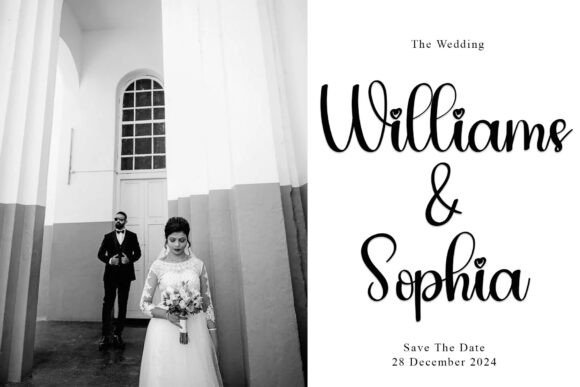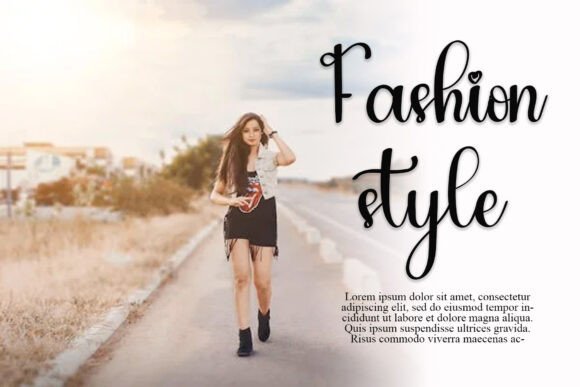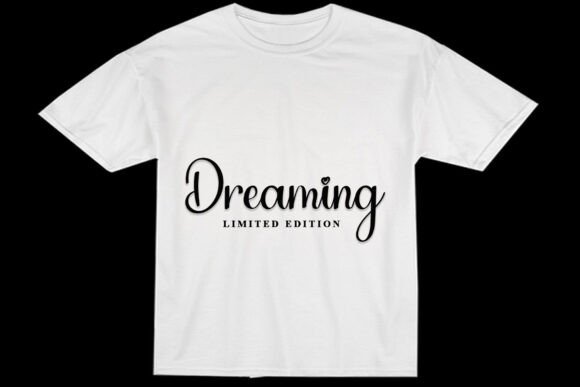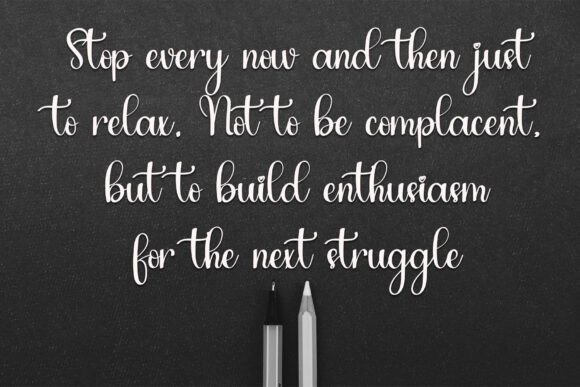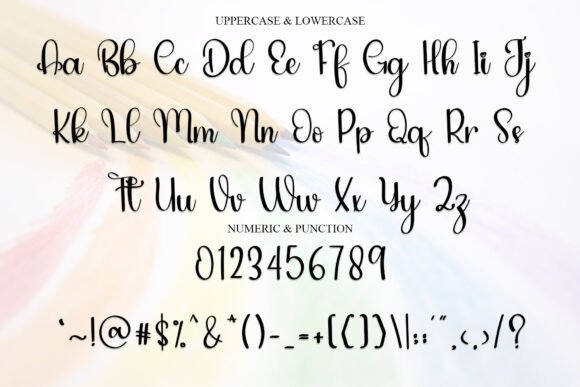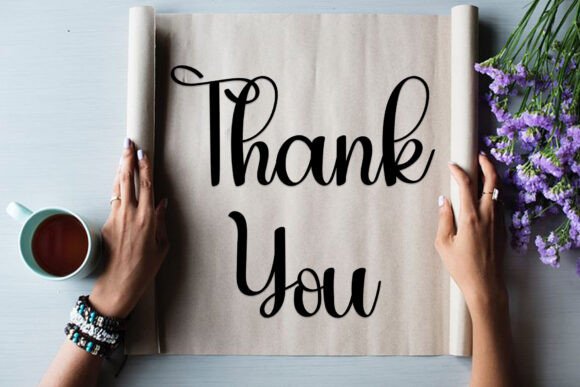
Unlock the Whimsy of Beautiful Darling Font
Do you remember the thrill of discovering a new font that perfectly captures the essence of your creative vision? For many designers, that ‘aha’ moment is what drives us to keep pushing the boundaries of our art. It’s the spark that ignites a new project, a fresh idea, or a bold statement. And that’s exactly what happened when I stumbled upon the Beautiful Darling Font.
This playful handwritten font is more than just a pretty face – it’s a versatile tool for designers looking to add a touch of warmth and personality to their work. With its relaxed and friendly style, Beautiful Darling Font is perfect for casual designs, school projects, or fun summer-themed ideas. Its PUA encoding also makes it easy to access all the amazing glyphs and ligatures, giving you endless creative possibilities.
Beautiful Darling Font Key Features
- Font Family: Beautiful Darling
- Unique Characteristics: Elegant script font with swashes and flourishes, ideal for creative and artistic projects
Designer Review: Beautiful Darling Font
Overall, I’m quite impressed with the Beautiful Darling Font. It’s a beautiful, elegant script font that would be perfect for adding a touch of sophistication to your designs. ✨ The font’s flowing lines and cursive feel make it ideal for use in invitations, wedding designs, and other high-end projects.
- ✨ Elegant and sophisticated design, perfect for high-end projects
- ✨ Wide range of language support, including Latin, Greek, and Cyrillic scripts
However, there are a few limitations to consider. ⚠️ The font can be a bit too ornate for some designs, and the weight of the font may not be as consistent across different sizes. Additionally, the font may not be the best choice for text-heavy projects, as the cursive feel can make it difficult to read.
Overall, I would recommend the Beautiful Darling Font for projects where elegance and sophistication are key. While it may have some limitations, the font’s beauty and versatility make it a great addition to any designer’s toolkit.
The Beautiful Darling Font is ideal for creative and artistic projects, such as:
– Blog and website headers
– Social media graphics and ads
– Print and digital marketing materials